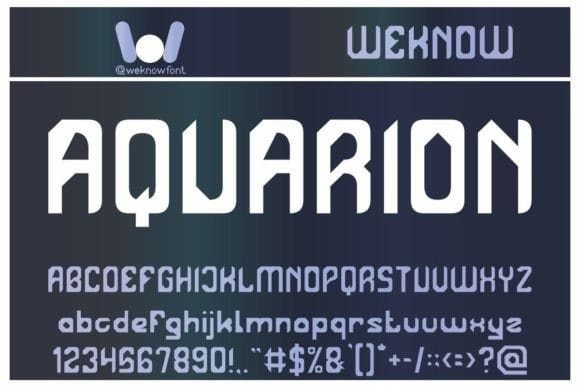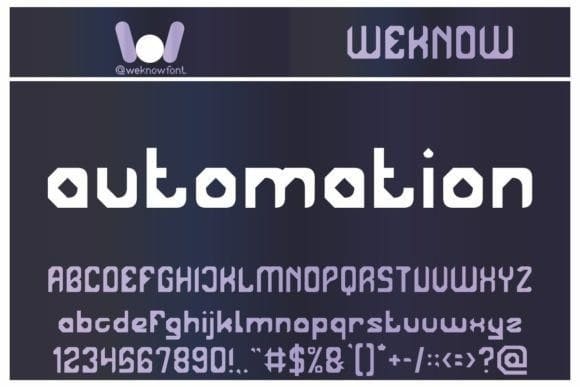
Mecha Robot Font
Mecha Robot Font is a techno-inspired display font suitable for various themes such as logos, logotypes, headlines, corporate identity, brand identity, apparel industry, posters, music, movies, games, magazines, books, comics, cartoons, YouTube, Instagram, websites, or any of your creative design projects.